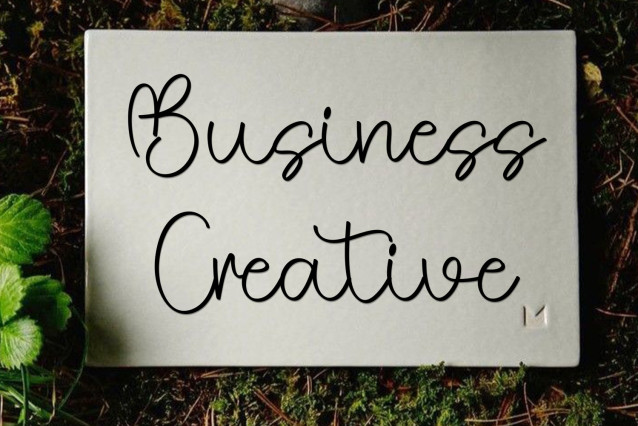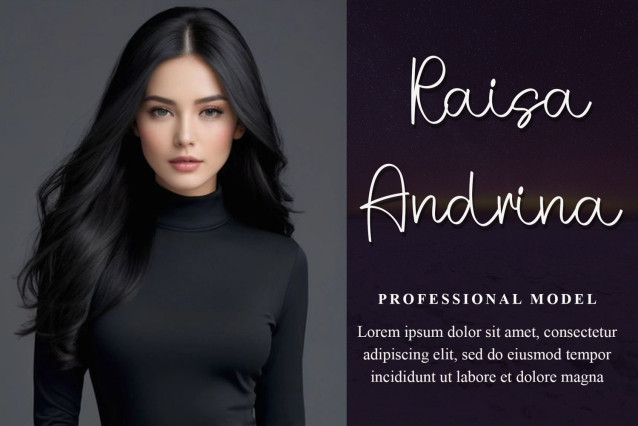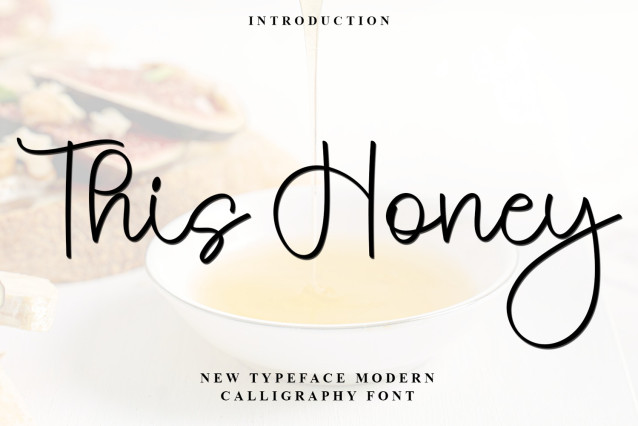
This Honey Font
This Honey Font is a beautiful and eye-catching font designed with a soft, unique touch. Its distinctive strokes give it a special character, making it meaningful and versatile for future use. With various characters, it’s perfect for design projects, crafts, and other creative works.